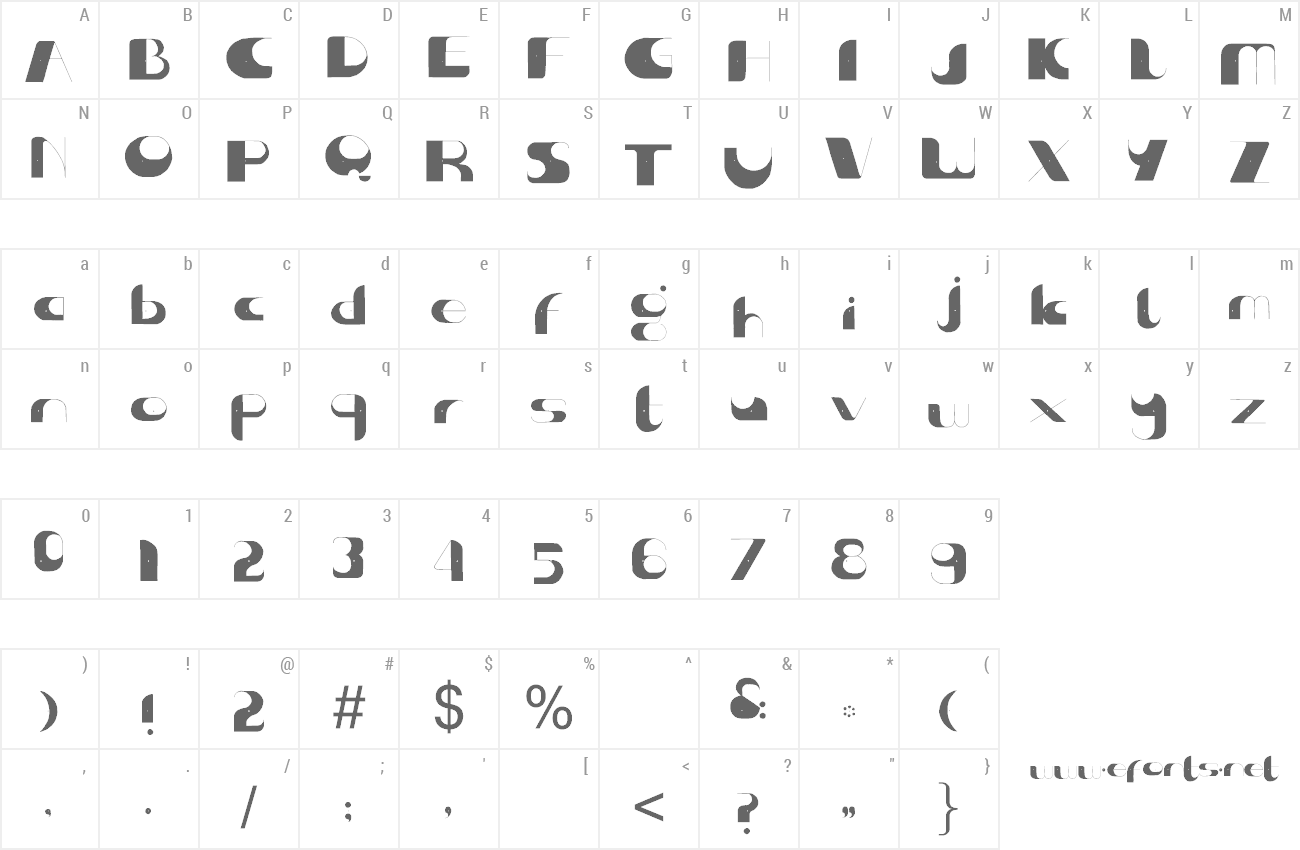
| Font name: | Center of Gravity |
| Author: | Kate Goodridge |
| Note by Kate Goodridge | |
| Alignment based on the centre of gravity. Each letter is composed of positive and negative regular shapes to allow for the calculation, letterforms are then aligned according to the centre of gravity, as opposed to the baseline and x-height. |